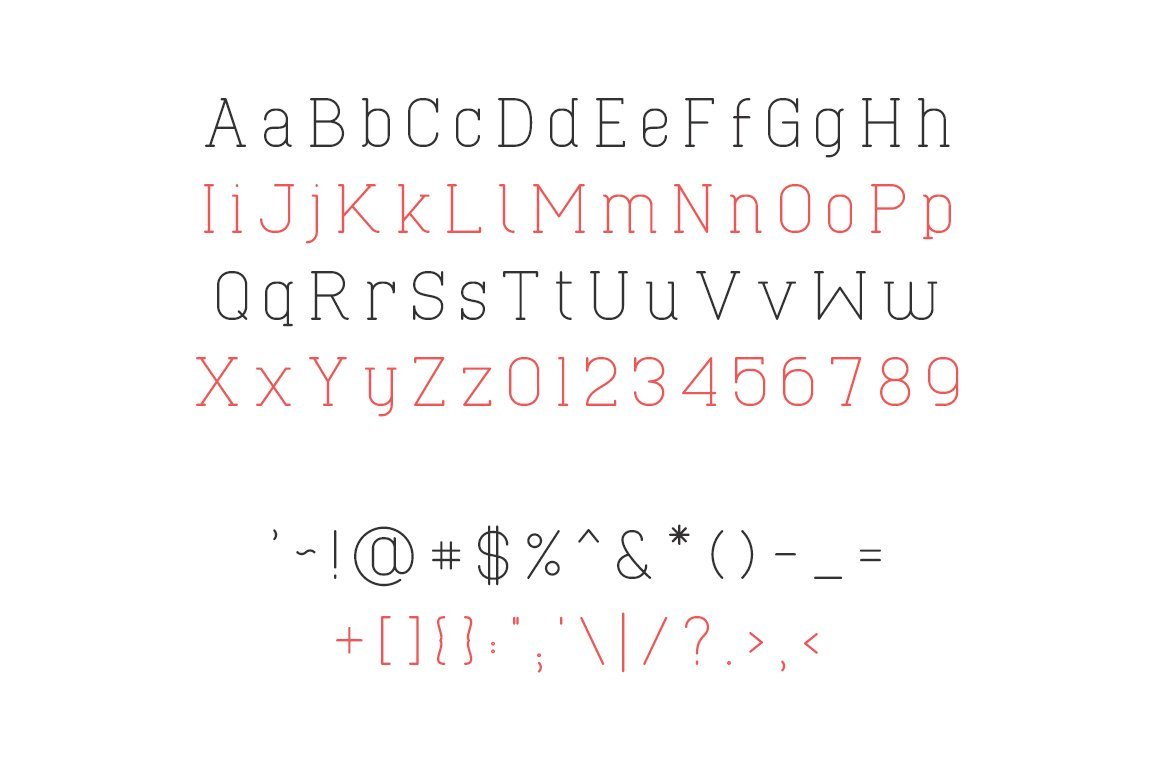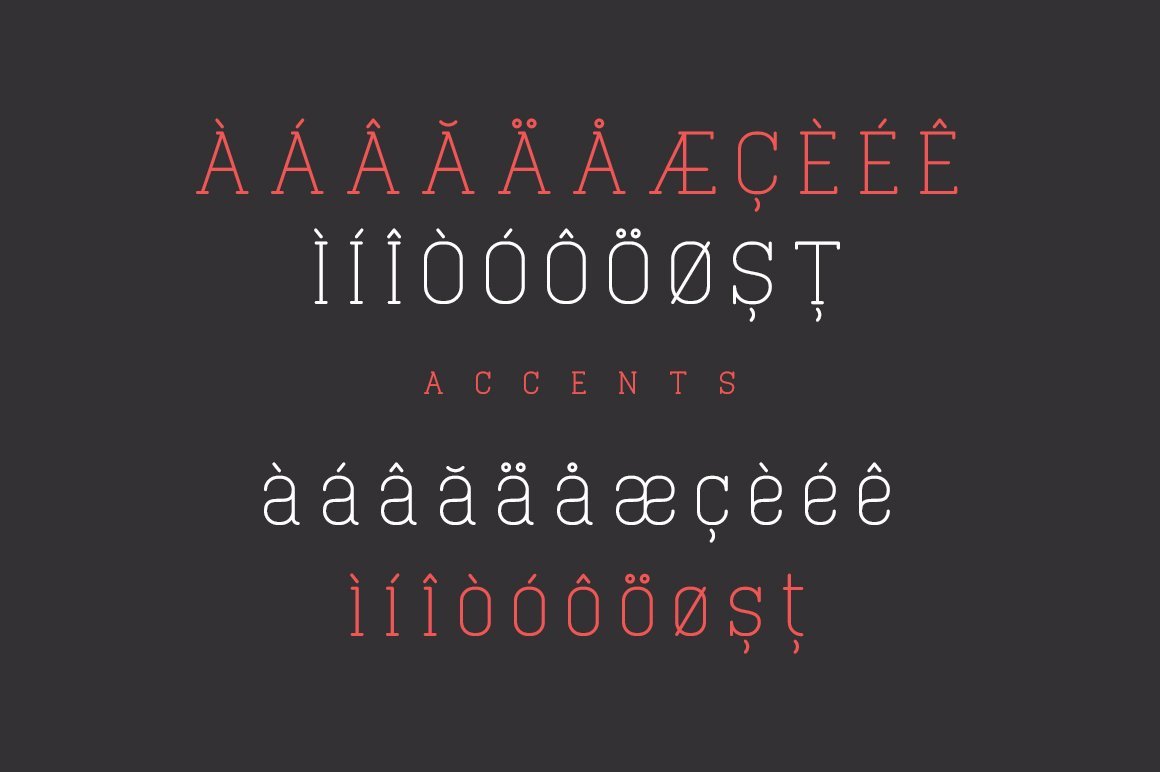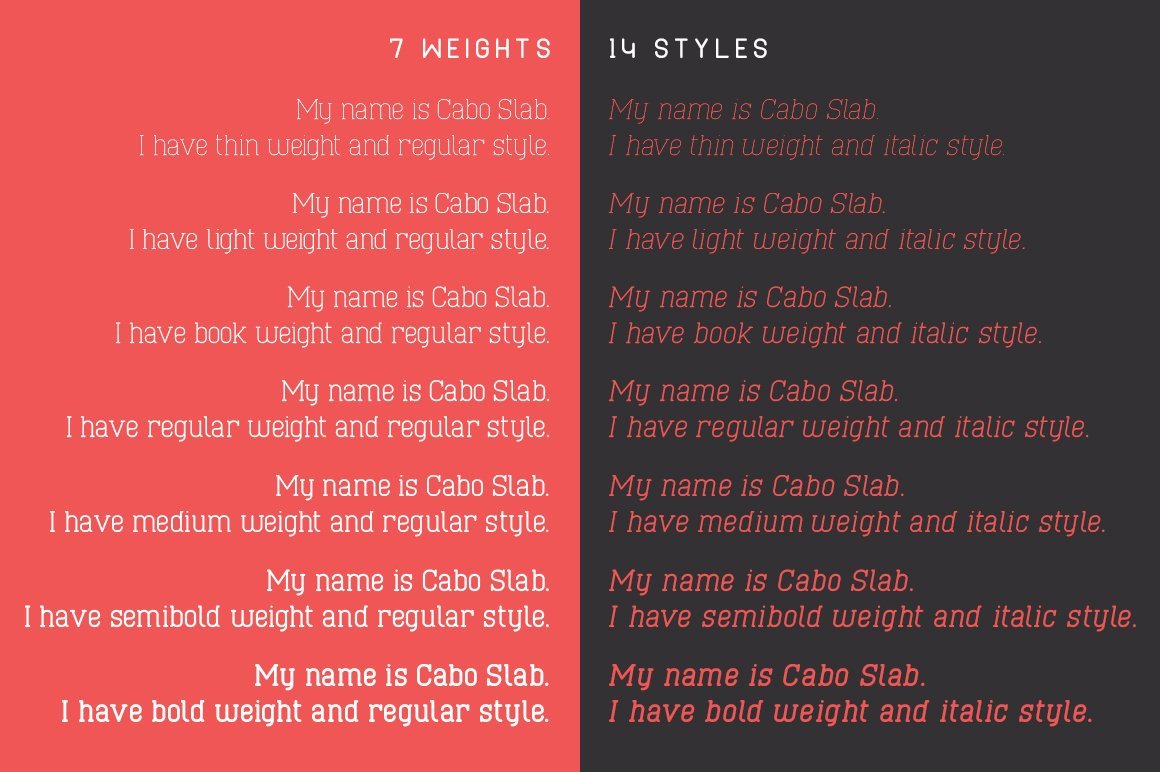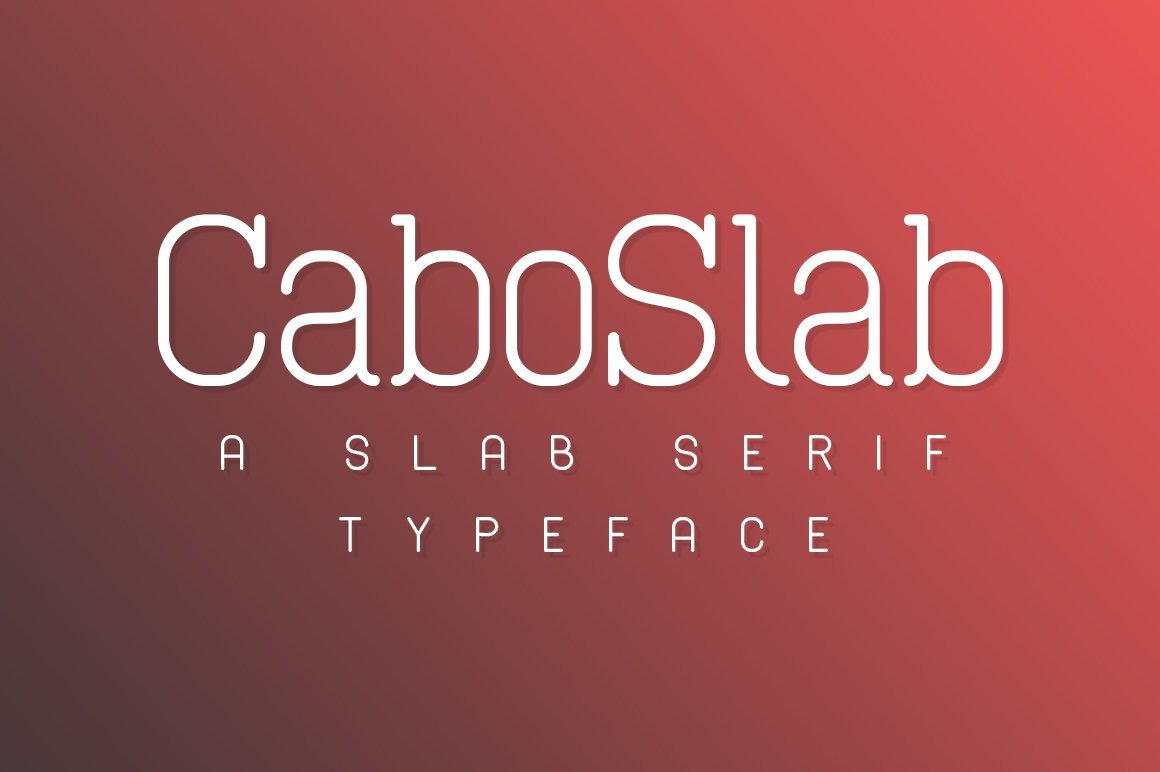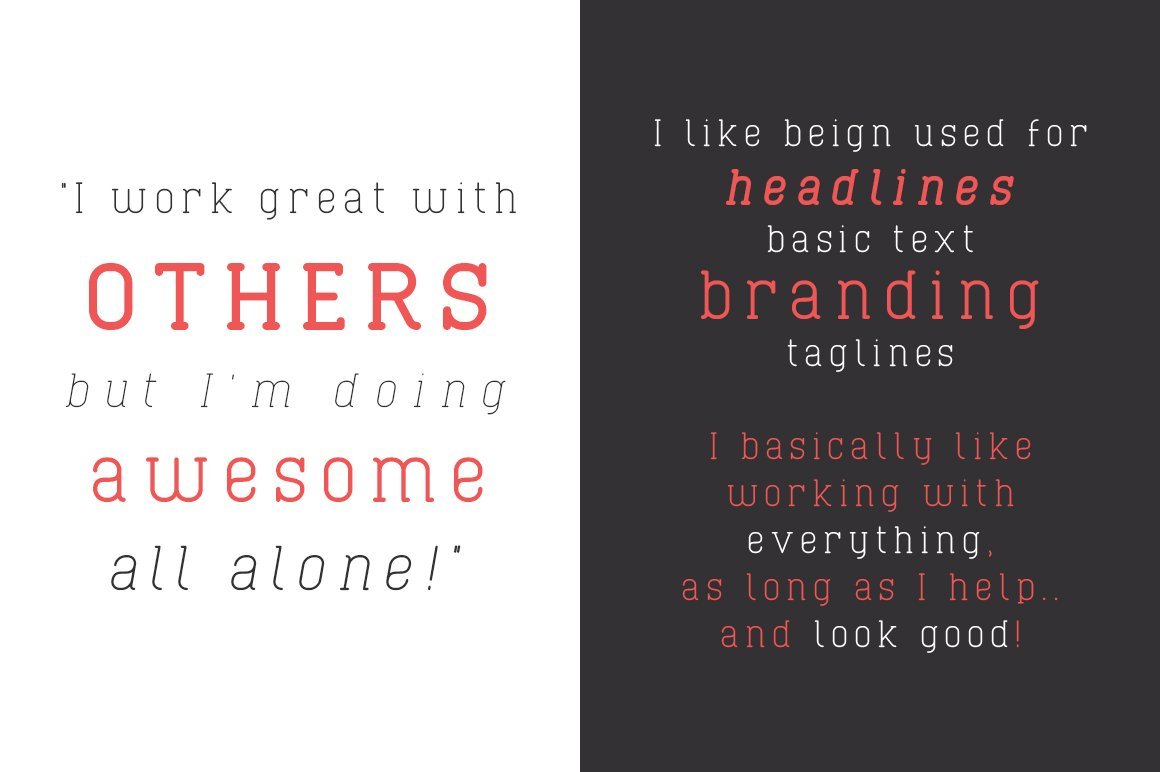
Cabo Slab Font Family
It’s my great pleasure to introduce you my latest creation, a slab serif font family called “Cabo Slab”. The fonts are based on the sans serif version called “Cabo Rounded” – https://crmrkt.com/Ggb5a – updated to a slab serif style.
The font family comes in 7 weights and 14 styles, basic alphabet letters, punctuation marks and a couple of accents.
Weights and styles
• Thin + Thin Italic
• Light + Light Italic
• Book + Book Italic
• Regular + Italic
• Medium + Medium Italic
• Semibold + Semibold Italic
• Bold + Bold Italic.